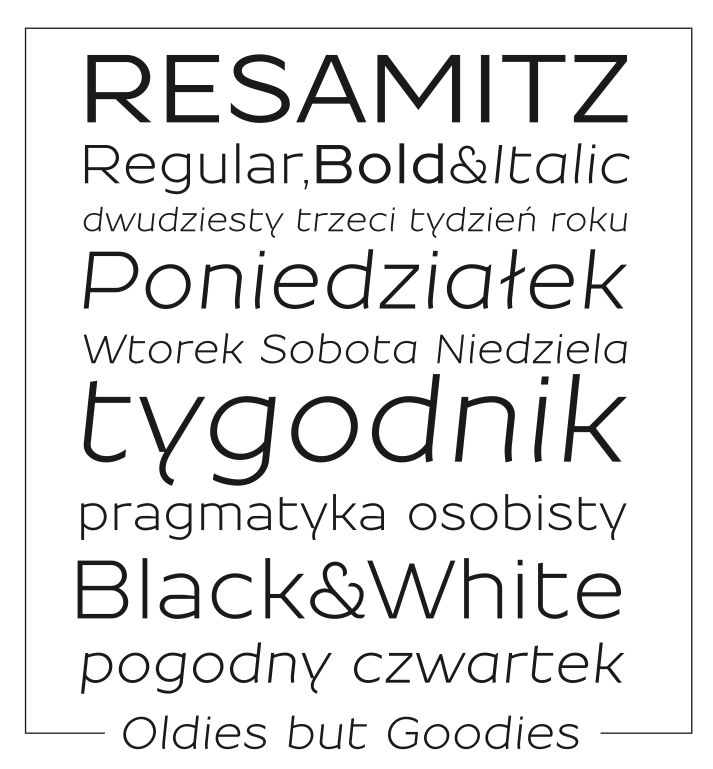
Sans serif font Resamitz with variants: Regular, Italic and Bold. Fonts have contextual alternates and 2 stylistic sets: alternate E,e (s01) and N,M (s02). Additional ResamitzS01 with stylistic set S01 as default (alternate “e”).